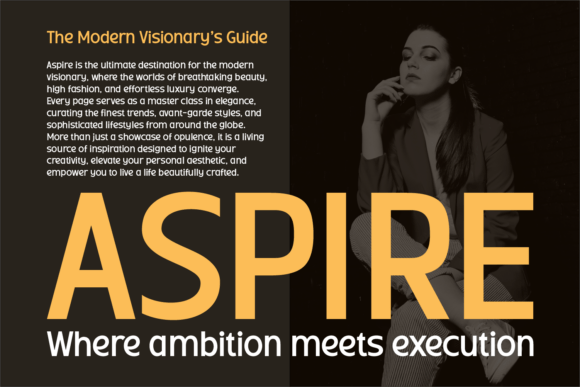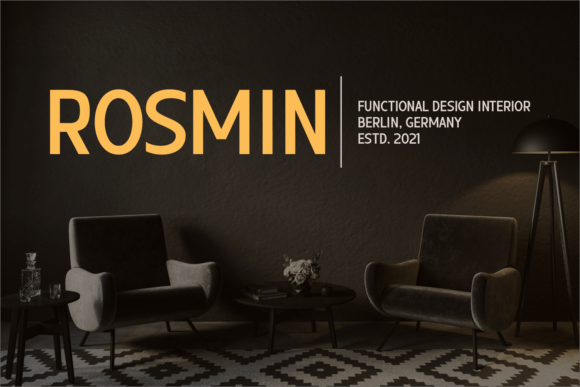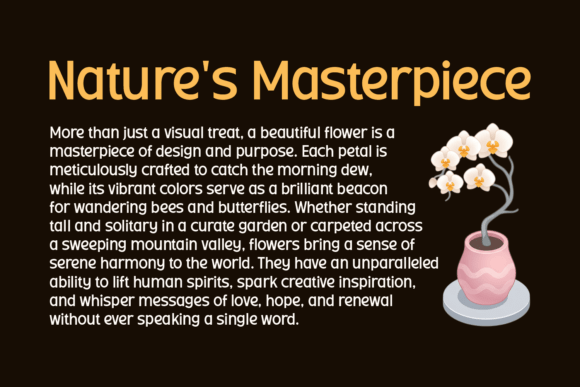
Introduction to Gomble Font
Remember the moment when you finally found the perfect font to elevate your design project? It’s that feeling of pure excitement and relief, knowing that your creative vision is about to come to life. For designers, finding the right font can be a game-changer. It’s the difference between a decent design and a truly exceptional one. And that’s exactly what the Gomble Font is all about – creating an unparalleled visual experience for your audience.
As a versatile design resource, the Gomble Font is designed to be endlessly adaptable, making it perfect for a wide range of creative projects. From editorial titles to photography and book covers, this high-quality font is sure to impress. With its beautifully balanced sans serif style, it embodies modern cleanliness with a timeless, minimalist spirit. And the best part? It comes with advanced OpenType features and multilingual support, making it a valuable asset for designers who need to convey their message in multiple languages.
Key Features of Gomble Font
- Unique, hand-drawn design perfect for creative projects requiring a personal touch.
- High-quality font with transparent background, allowing for seamless integration into various design elements.
Honest Review: Gomble Font
I recently came across the Gomble Font, a free download that caught my attention. As a designer, I appreciate high-quality design resources, and Gomble Font does not disappoint. It’s perfect for a creative project that requires a unique and eye-catching font.
- ✨ Transparent background: The font has a transparent background, which makes it easy to use and combine with other design elements.
- ✨ Customizable: Gomble Font is highly customizable, allowing you to adjust the size, color, and style to suit your needs.
- ✨ Versatile: This font can be used for a wide range of projects, from logos to marketing materials.
While Gomble Font is an excellent choice, there are a few limitations to keep in mind:
- ⚠️ Limited font weights: The font only comes in a few weights, which may limit its use in certain situations.
- ⚠️ Not suitable for small text: Due to its unique design, Gomble Font may not be the best choice for small text or fine details.
Overall, I’m impressed with Gomble Font. Its high quality and versatility make it a valuable addition to any designer’s toolkit. If you’re looking for a unique and creative font, Gomble Font is definitely worth checking out.
How to Use Gomble Font
Introduction to Gomble Font
Gomble Font is a high-quality, free download design resource ideal for creative projects requiring a unique and eye-catching font. This versatile font features a transparent background, making it perfect for overlaying on images or using as a standalone element.
Tips for Getting the Most Out of Gomble Font
To maximize the effectiveness of Gomble Font, experiment with different font sizes, colors, and layering techniques. This will help you achieve the desired visual impact for your creative project.
Common Use Cases for Gomble Font
Gomble Font is ideal for a wide range of creative projects, including social media graphics, blog posts, and marketing materials. Its unique design makes it perfect for grabbing attention and conveying a message.
Can I customize the Gomble Font to fit my design needs?
Yes, the Gomble Font is highly customizable. You can adjust the font’s size, color, and style to fit your design project’s requirements. Additionally, you can use font editors like FontForge or Glyphs to modify the font’s glyphs and create custom variations. However, please note that modifying the font’s structure may affect its compatibility with certain software or platforms.